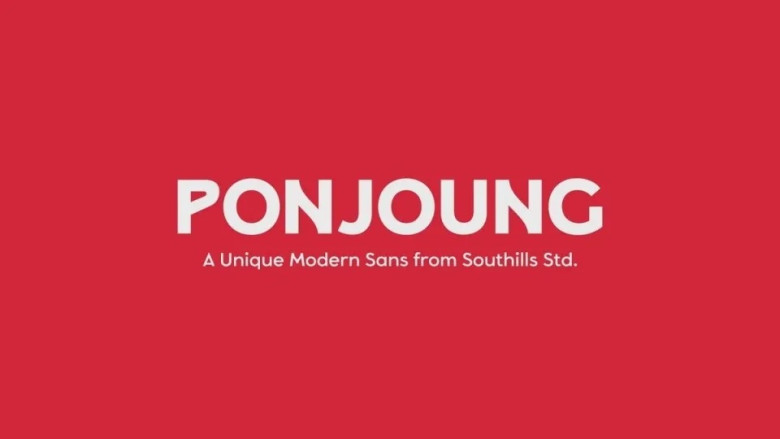
Ponjoung Font
Ponjoung Font is a modern and elegant display sans serif typeface. Elegant shapes that flow beautifully on creative projects. Ponjount font with themes that are about beauty, fashion and femininity. With a style signature handmade script. Ponjout Font 4 weight and matching italic. Its swash is great on a main capital letter and a stylistics build on it expends this opportunity.
It is Perfect and purposefully design for corporate needs, the fashion world, it is not limited to others, such as product promotion design, website, brand identity, Instagram feed, Stationary, presentation, comic.
Ponjoung Sans Serif Font